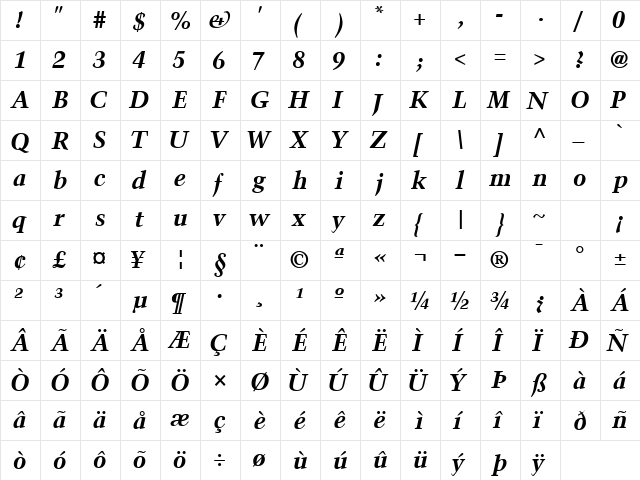
BlackfordSSK BoldItalic Font Preview
BlackfordSSK BoldItalic
Design Context for BlackfordSSK Typeface
BlackfordSSK takes a measured approach to typography — its balanced proportions and neutral character make it a reliable workhorse for both digital and print work. The slanted form adds forward momentum and visual energy. The heavy weight commands attention and anchors typographic hierarchies.
Pro Tip: Use BlackfordSSK for emphasis, pull quotes, and subheadings where its slanted energy can add rhythm to the layout.